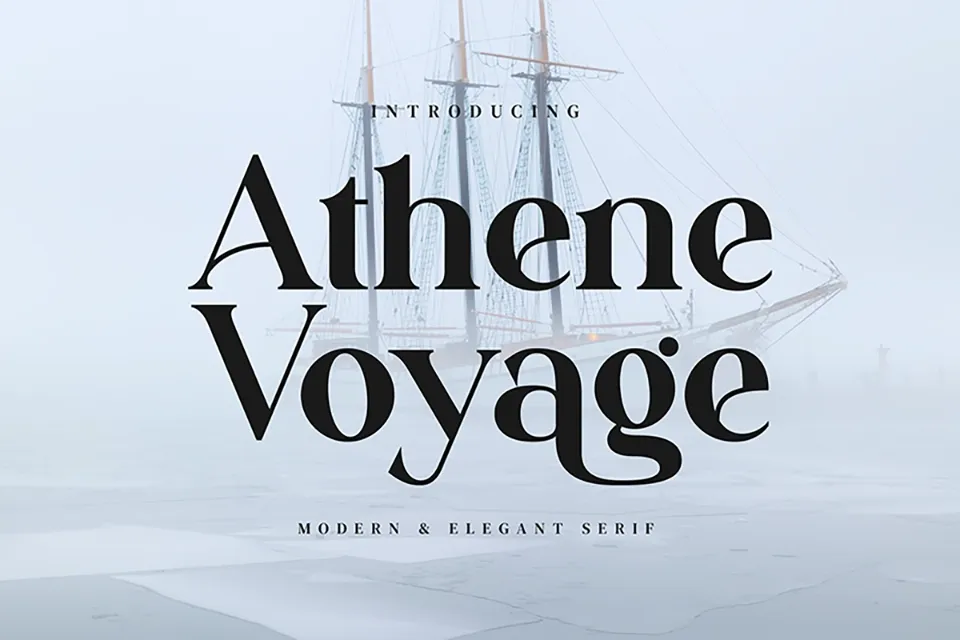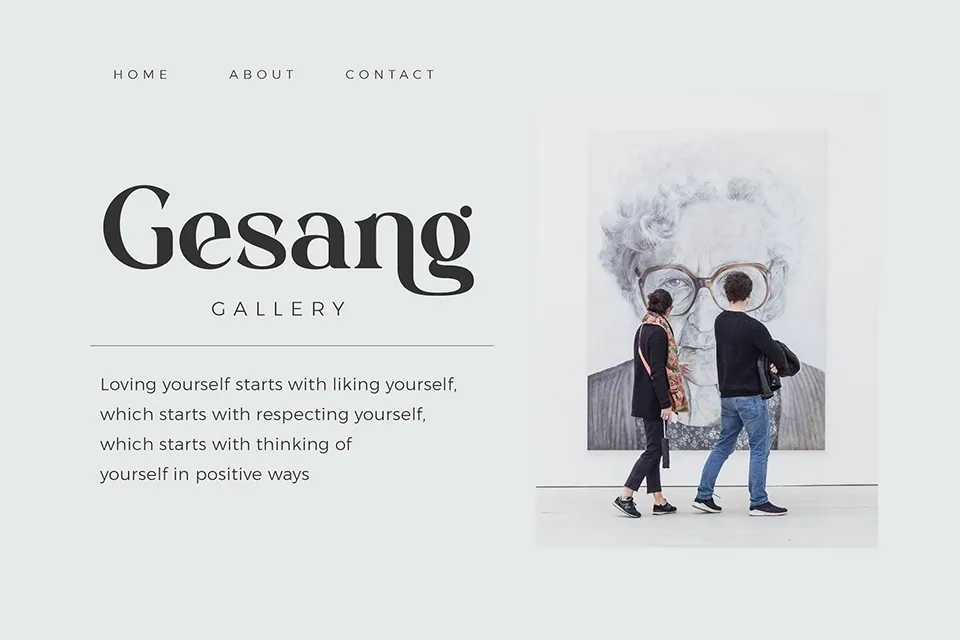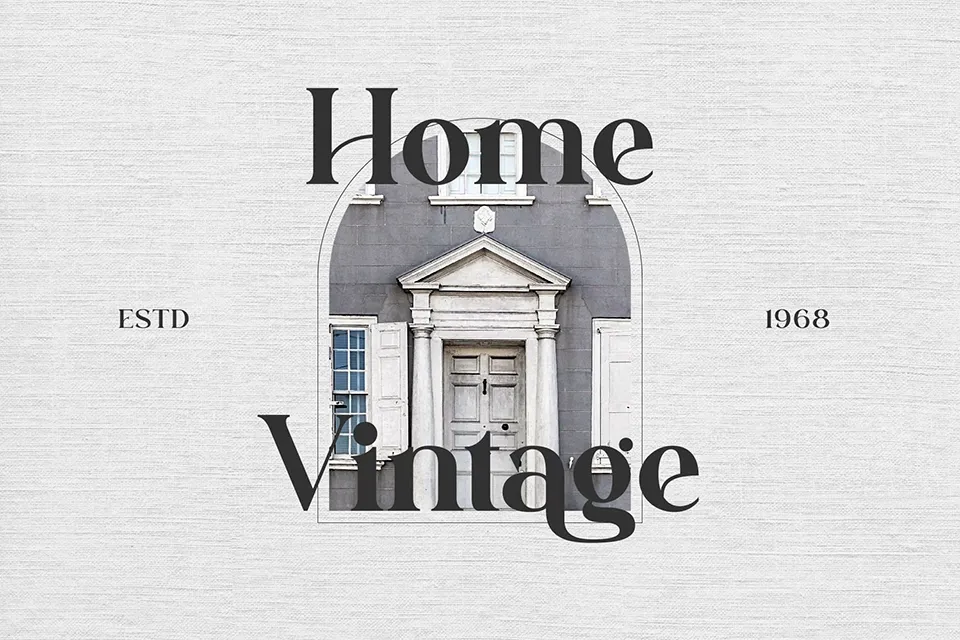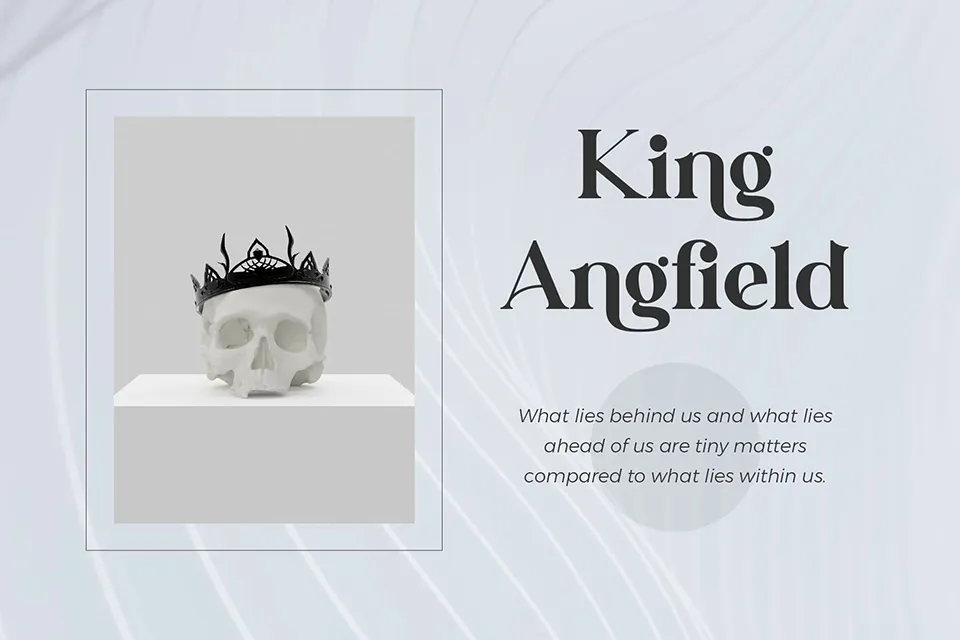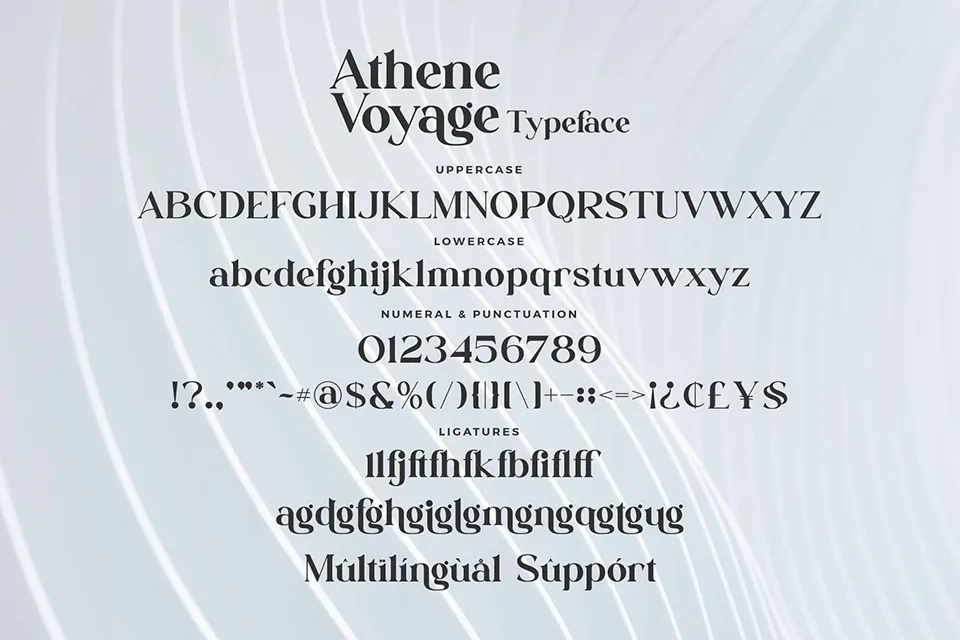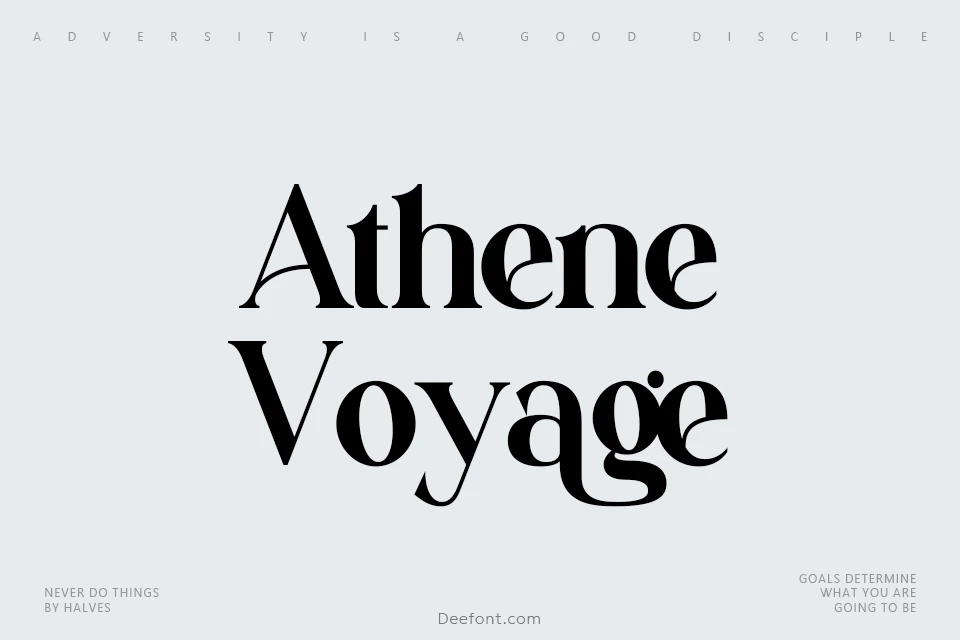
Athene Voyage Font
Athene Voyage Font is a modern and elegant serif font designed to bring a sense of luxury and sophistication to your creative projects. Featuring refined letterforms, graceful curves, and stylish ligatures, this typeface is perfect for high-end branding, editorial layouts, wedding invitations, and luxury packaging. Inspired by minimalist logos, Athene Voyage stands out with its timeless aesthetic and versatility, making it suitable for both digital and print designs. With multilingual support and easy installation, this font ensures your work appears polished and exclusive, elevating any project that requires a touch of prestige and refinement.